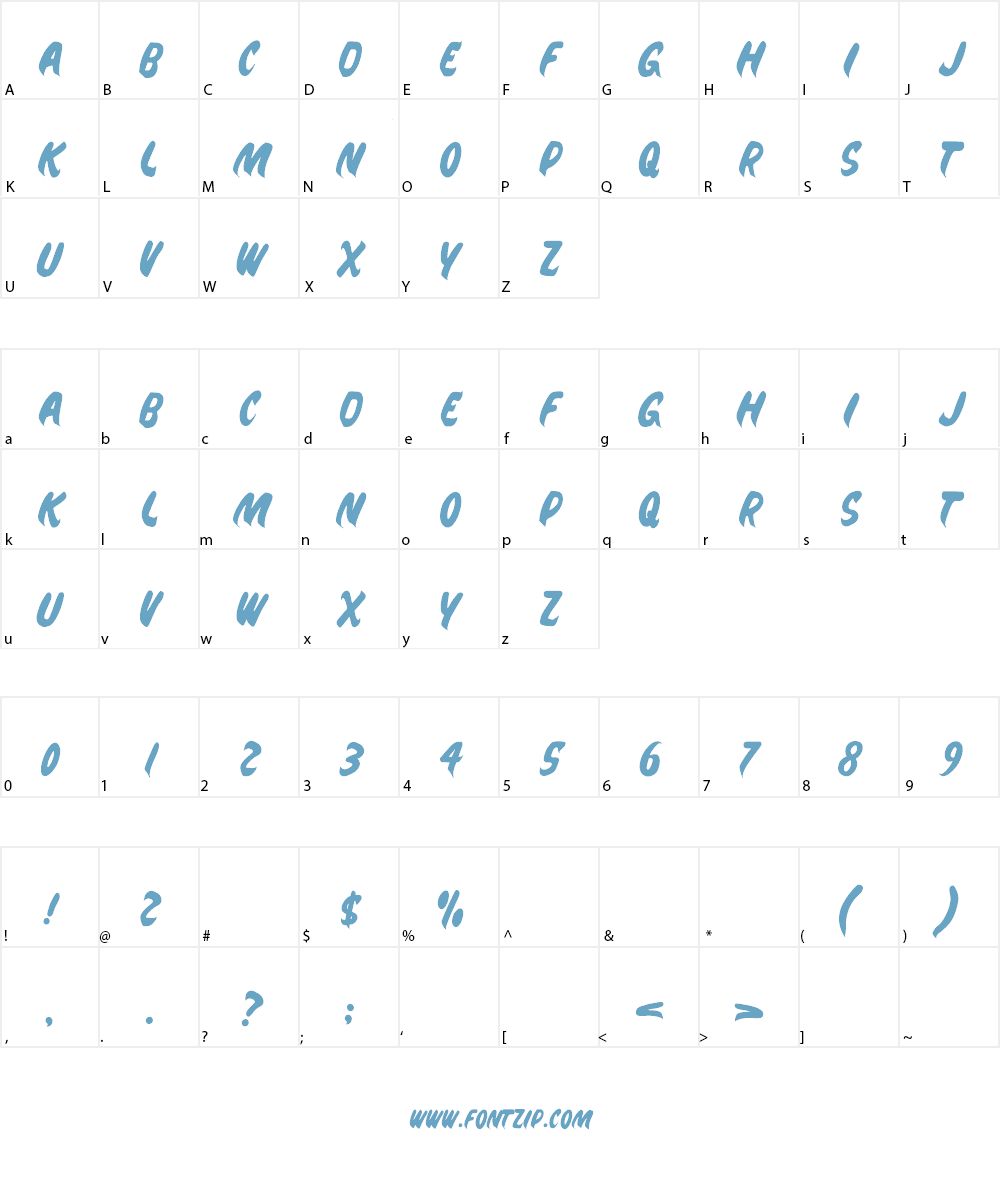
A brush script font with a truly unique Philippine aesthetic.
A jeepney is a type of public transport in the Philippines. Often times, the signage on the jeepney is hand-painted. Each painter has his or her own lettering style and they are all unique and interesting. This font was inspired by one of these styles I found...